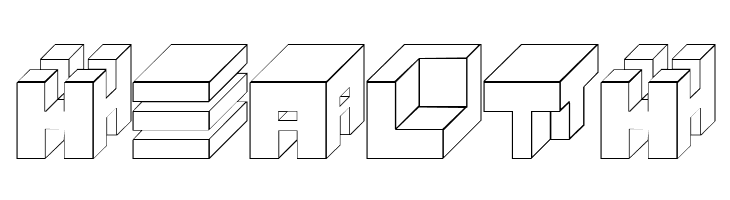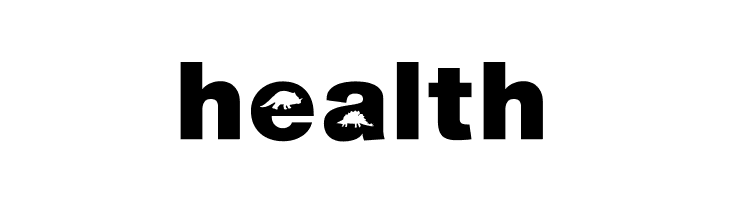
( Fonts by Omega Font Labs )
A bold, artistic serif font with sharp angles and smooth curves.
( Fonts by Emil Bertell - www.fenotype.com )
A bold, 3D cube-style font with a modern, geometric design.
( Fonts by AJ Palmer )
A playful, bold font with a whimsical, hand-drawn style and rounded, irregular shapes.
( Fonts by Slub Design - Raymond Buetens - www.slubdesign.com )
A bold, dynamic font with sharp angles and a playful, energetic feel.
A bold, condensed font with tall, narrow letterforms and consistent stroke thickness.